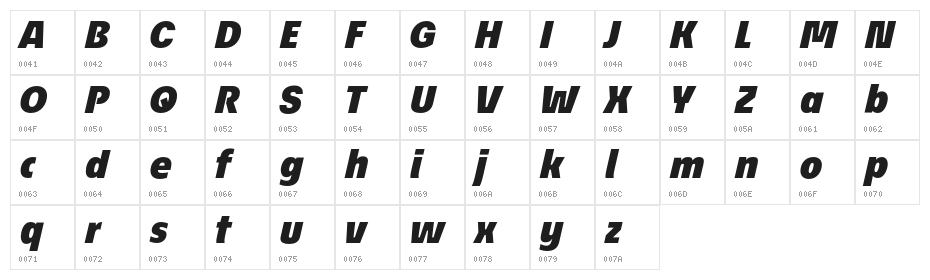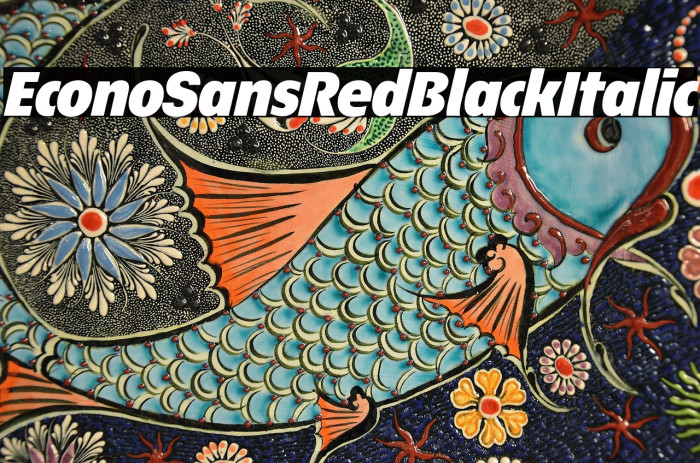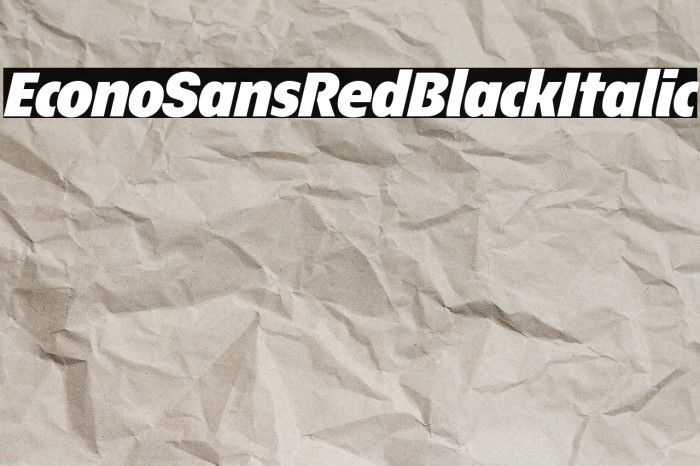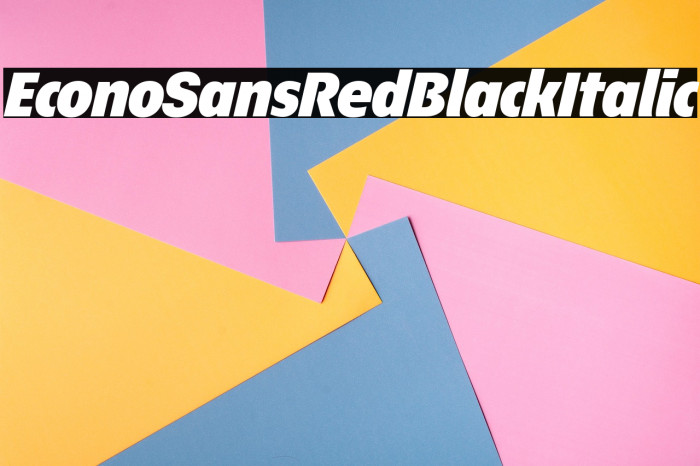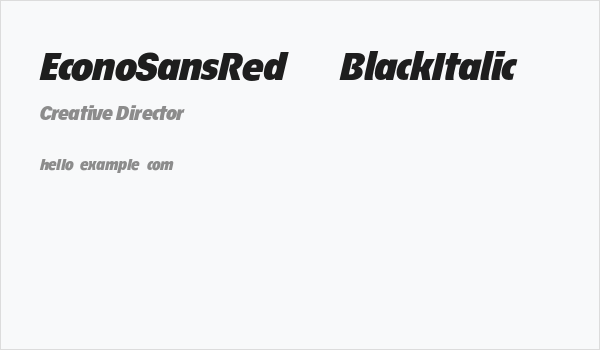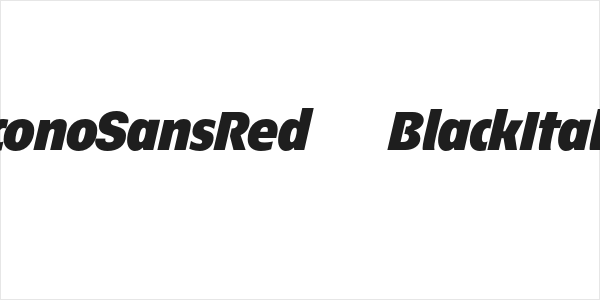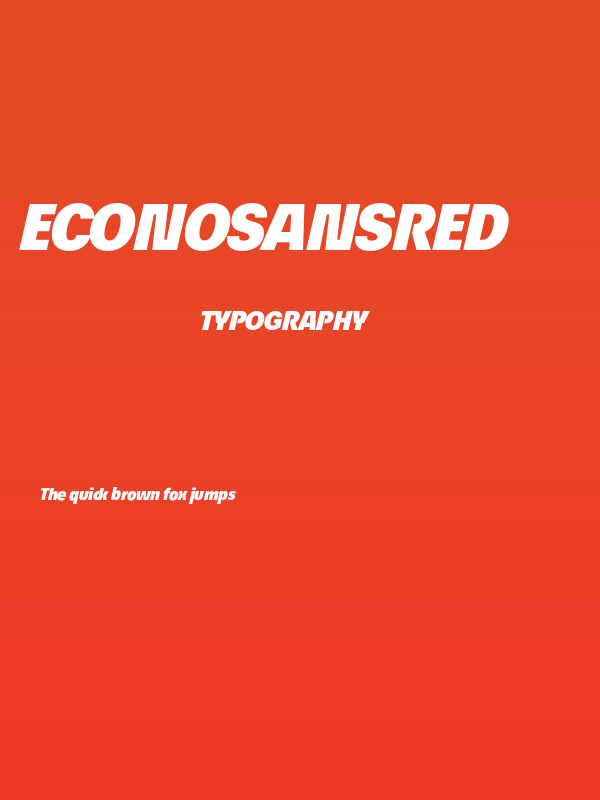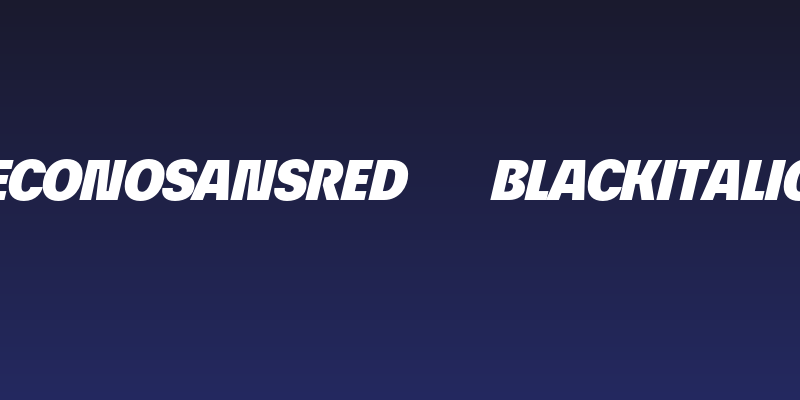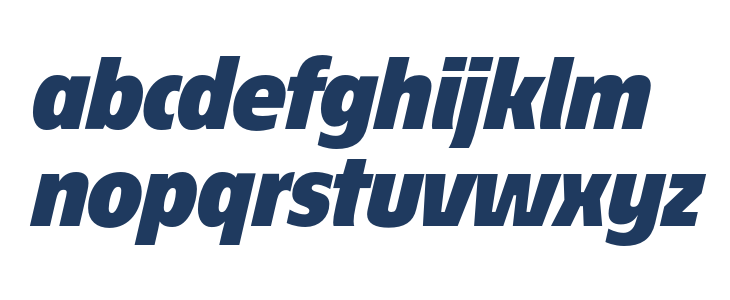
EconoSansRed-96BlackItalic Font
EconoSansRed-96BlackItalic Description
This font exhibits a bold and dynamic style with a strong presence. The characters are slanted, indicating an italic design, which adds a sense of motion and urgency. The strokes are thick and consistent, providing a robust and confident appearance. The uppercase and lowercase letters maintain a uniform width, contributing to a cohesive look. The overall design is modern and clean, making it suitable for impactful headlines and branding. The spacing between characters is tight, enhancing the compact and bold nature of the font.
| Proposed Projects | Ideal for advertising, headlines, branding, and logo design where a strong and modern impression is needed. |